In the world of design, creativity knows no bounds, and one of the most effective tools to unlock that creativity is through font vectors. But what exactly are font vectors? Simply put, these are scalable graphic representations of text, allowing designers to use typefaces without losing quality, no matter how large or small they scale the text. At 123RF, you'll find an exciting collection of font vectors that can elevate your projects, making them visually appealing and unique. Let's dive deeper into the world of font vectors and explore how they can transform your design approach.
Benefits of Using Font Vectors
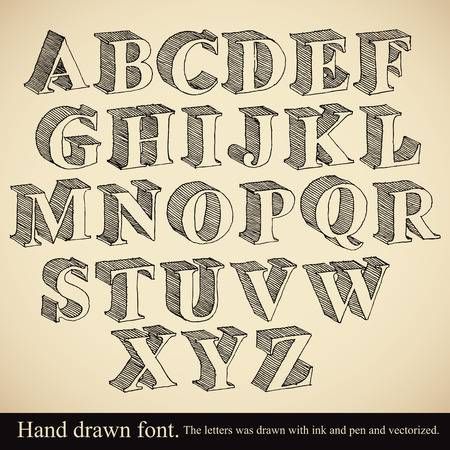
Font vectors offer a plethora of benefits that every designer should consider. Here’s why incorporating them into your creative arsenal can be a game-changer:
- Scalability: Font vectors are resolution-independent, meaning they can be resized without any loss of quality. Whether you need a tiny logo or a massive billboard, your text will always look crisp and clear.
- Versatility: With font vectors, you can play around with styles, colors, and effects easily. They can be manipulated to fit any design concept, allowing for incredible customization in your projects.
- Professional Appearance: Using a variety of font vectors can help your designs look polished and professional. Tailoring fonts to match your brand's voice or the tone of your project can make a significant impact.
- Easy to Edit: Unlike raster images, which can be challenging to modify, vector fonts can be adjusted in various design software. This flexibility ensures that changes can be made swiftly and efficiently.
- File Size: Font vectors generally take up less storage space compared to raster images. This can be particularly beneficial for web designers who need to optimize loading times without sacrificing quality.
Here are some specific scenarios where font vectors can shine:
Scenario | Benefit of Font Vectors |
---|---|
Branding Projects | Maintain consistency across various marketing materials. |
Custom Illustrations | Easily integrate type with graphic elements for cohesive artwork. |
Website Design | Optimize load speed while retaining stunning visuals. |
Print Media | Deliver sharp, high-quality prints for flyers and brochures. |
In conclusion, incorporating font vectors into your designs can significantly enhance the quality and creativity of your work. With tools like 123RF at your disposal, accessing an array of font vector options is easier than ever. So go ahead, unleash your creativity and explore the endless possibilities that font vectors can offer!
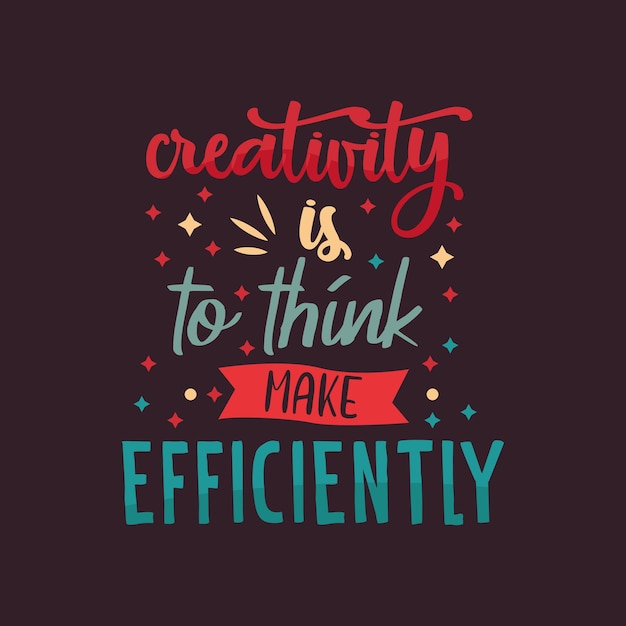
- Preview and Select: Click on any font vector that catches your eye to get a larger preview. This lets you examine specifics like style and detail before you decide.
- Add to Your Cart: If you find a font vector you love, simply add it to your cart. You can purchase a single vector, or explore subscription plans if you foresee needing multiple designs over time.
- Download Your Font Vector: After purchase, you’ll have an option to download the vector file in various formats, ensuring compatibility with your design software.
And just like that, you’re ready to unleash your creativity using font vectors from 123RF! Whether you’re working on a personal project or something more professional, having access to such a vast library can make all the difference in your design journey.
4. Best Practices for Implementing Font Vectors
Now that you have a variety of font vectors at your fingertips from 123RF, you might be wondering, “How do I effectively use them in my projects?” Implementing font vectors into your designs can greatly enhance your work, but there are some best practices to keep in mind to ensure that you’re using them effectively:
- Choose the Right Font for Your Message: Select font vectors that align with the tone and purpose of your project. For instance, a whimsical font may not be suitable for a corporate presentation, while a bold, sans-serif may not fit a wedding invitation.
Furthermore, using font vectors can enhance not just the aesthetic aspect but also the readability:
Fonts | Readability | Visual Impact |
---|---|---|
Serif | High | Classic & Elegant |
Sans-serif | Medium | Modern & Clean |
Script | Low | Artistic & Personal |
Incorporating 123RF font vectors into your projects not only boosts their visual allure but also streamlines the design process, making it easier than ever to create professional-looking content that resonates with your audience.